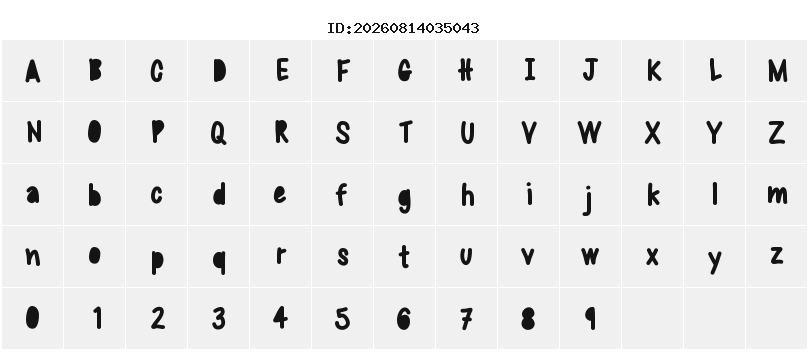
• Font Name: Sweetbubble
• Full Font Name: Sweetbubble
About Sweetbubble.ttf
Sweetbubble.ttf is a modern, elegant sans-serif font designed for ultimate readability and visual harmony. Perfect for branding, headlines, web design, and print materials.